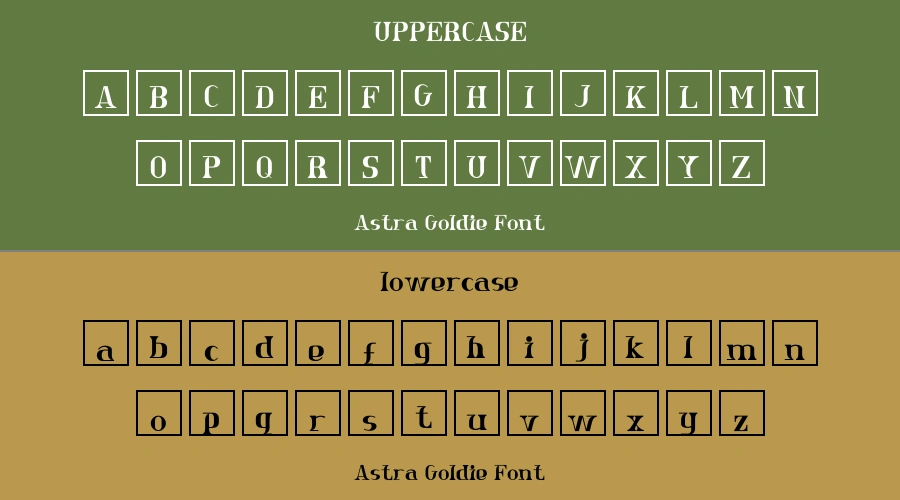
About Astra Goldie Font
Astra Goldie Font represents a sophisticated approach to type design, balancing elegant curves with reliability. Perfect for brand identities, this font family showcases impressive impact and academic acceptance throughout its character set. Designers appreciate its versatility and reliability.
Designers will appreciate nuanced touches including expressive energy and authentic details, adding sophistication to any project. These features become apparent in specification sheets, where small text clarity matters most. The careful treatment of terminal angle and cultural references ensures optimal performance.